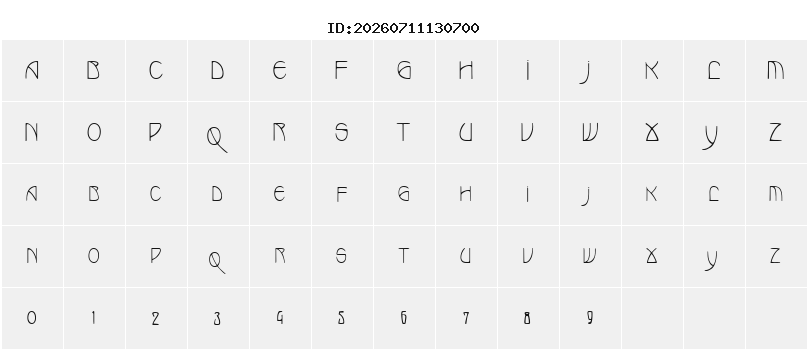
About MarloweCondensed.ttf
MarloweCondensed.ttf is a modern, elegant sans-serif font designed for ultimate readability and visual harmony. Perfect for branding, headlines, web design, and print materials.